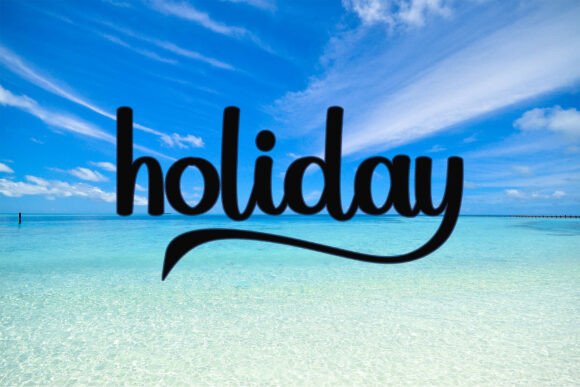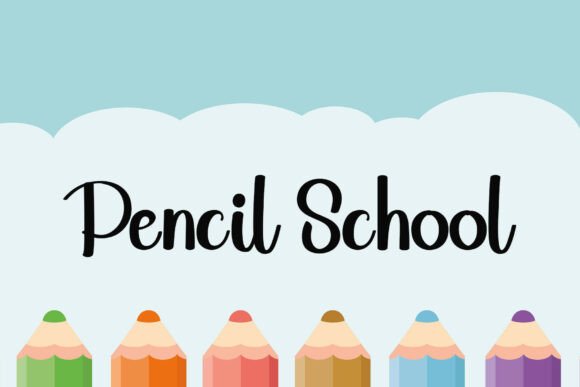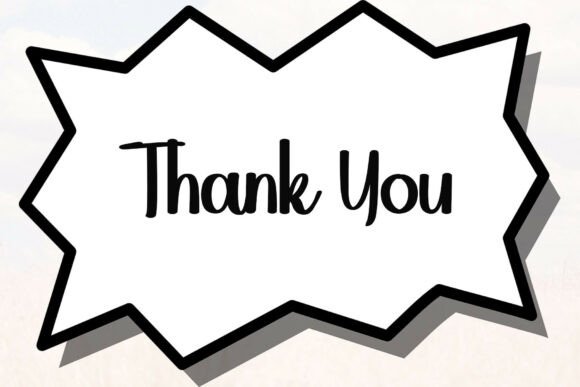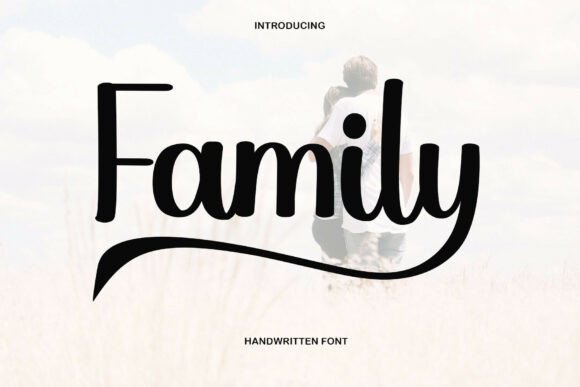
Introducing Family Font: Elevate Your Designs with Elegance and Sophistication
In the world of typography, a font can make or break a design. It’s the foundation upon which the entire visual identity is built. For designers and crafters seeking to infuse their projects with warmth and sophistication, Family Typeface is a game-changer. This stylish handwritten font seamlessly blends contemporary flair with the timeless grace of classic calligraphy, making it the perfect addition to your typographic arsenal.
The Essence of Family Typeface
Family Typeface is more than just a font – it’s a design statement. Its refined, balanced forms bring an effortless elegance to any project, whether it’s a logo, invitation, packaging, or branding material. The font’s versatility is one of its standout features, allowing it to adapt to various design contexts with ease. From formal events to casual, modern branding, Family Typeface is the epitome of chic and sophistication.
Key Features of Family Typeface
• PUA-Encoded for Ease of Use: Family Typeface is fully PUA-encoded, which means that all swashes, alternates, and glyphs are accessible without the need for additional software. This feature makes it incredibly user-friendly, saving you time and effort in your design process.
• Handwritten with a Touch of Classic Calligraphy: The font boasts a beautiful, handwritten style that echoes the elegance of classic calligraphy. This blend of modern and traditional elements makes it uniquely versatile.
• Effortless Elegance: With Family Typeface, achieving a sophisticated look has never been easier. Its balanced forms and refined lines ensure that your designs exude a sense of luxury and refinement.
• Versatile Applications: Whether you’re working on a logo, an invitation, packaging, or any other project where warmth and sophistication are key, Family Typeface is the perfect choice. Its adaptability makes it a valuable asset for any designer.
Applications of Family Typeface
The applications of Family Typeface are vast and varied. Here are a few examples of how this elegant font can elevate your designs:
• Logos and Branding: Create a lasting impression with a logo that embodies sophistication and elegance. Family Typeface is ideal for businesses looking to convey a sense of luxury, professionalism, and warmth.
• Invitations and Stationery: Make your invitations, greeting cards, and stationery stand out with a touch of class. Family Typeface adds a personal and elegant touch to any formal or casual event.
• Packaging Design: Elevate your product packaging with a font that communicates quality and sophistication. Family Typeface can help your product stand out on crowded shelves.
• Digital and Print Media: Whether it’s for a website, social media graphics, or print materials, Family Typeface brings a level of refinement and elegance that’s hard to achieve with standard fonts.
Why Choose Family Typeface?
In a sea of fonts, Family Typeface stands out for its unique blend of contemporary style and classic elegance. Here are a few reasons why it should be your go-to font for projects requiring sophistication:
• Unique Aesthetic: Its distinctive look sets it apart from more common fonts, ensuring your designs have a unique edge.
• Time-Efficient: Being PUA-encoded means you have instant access to all the glyphs and swashes you need, streamlining your design process.
• High Versatility: Suitable for a wide range of projects, Family Typeface is a versatile tool that can adapt to your design needs.
Font Name Family Font
Author asmunin78
Family Typeface is not just a font – it’s a design solution that brings elegance, sophistication, and warmth to any project. Its unique blend of contemporary flair and classic calligraphy, combined with its versatility and ease of use, makes it an indispensable asset for designers and crafters. Whether you’re aiming to create a stunning logo, an elegant invitation, or sophisticated packaging, Family Typeface is the perfect choice. Elevate your designs and make a lasting impression with the refined, balanced beauty of Family Typeface.